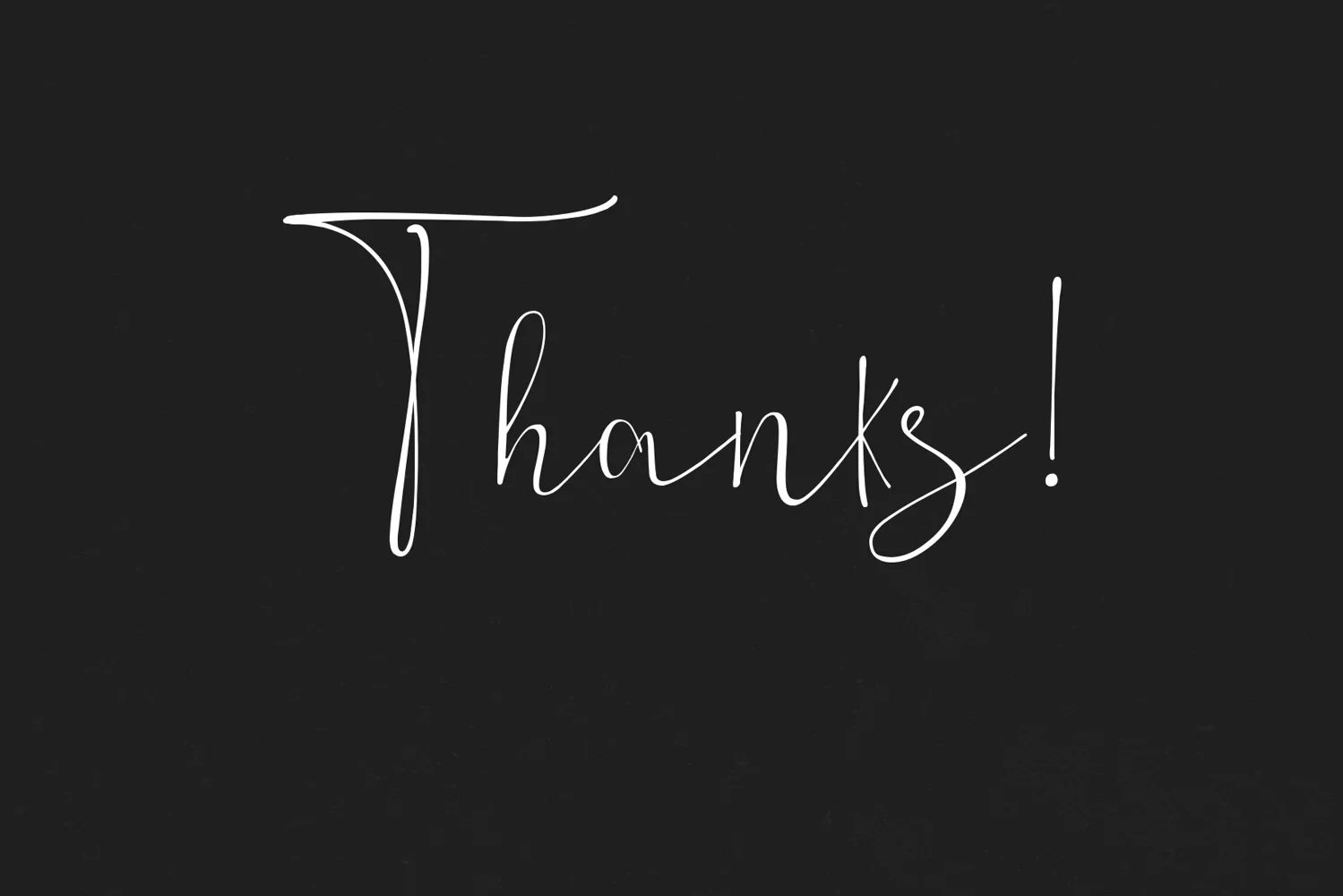
Sunny Tuesday is modern calligraphy font, with realistic handwritten style.
This font is a must have for anyone who always looking for beauty and natural looks in design.
Sunny Tuesday is a great font for wedding invitation, social media posts, quotes, product design, etc.